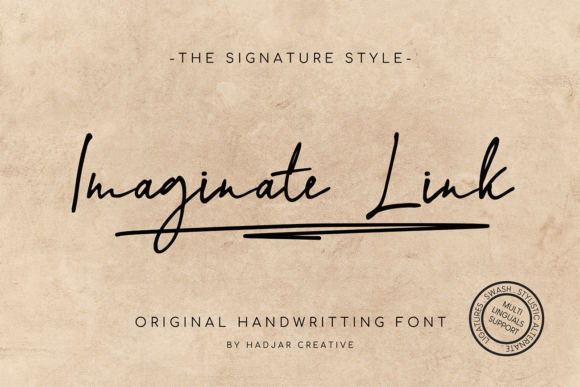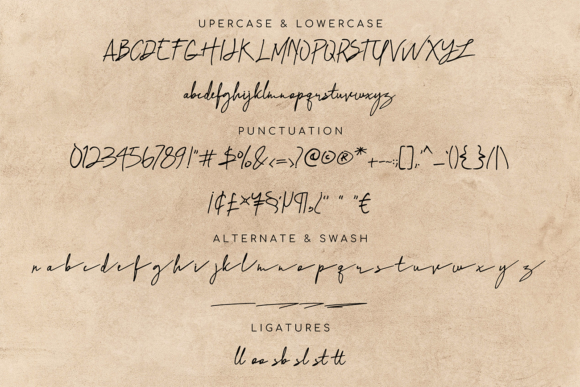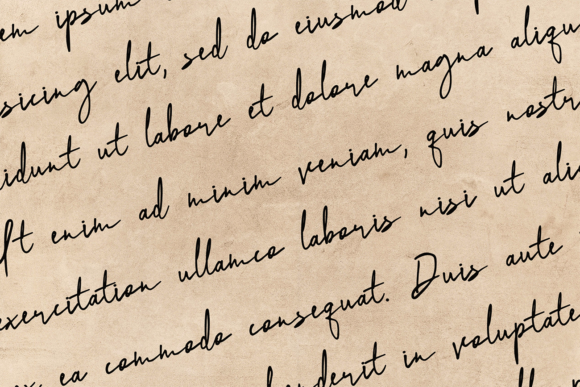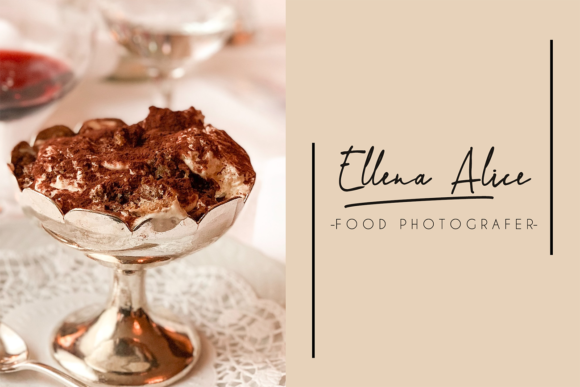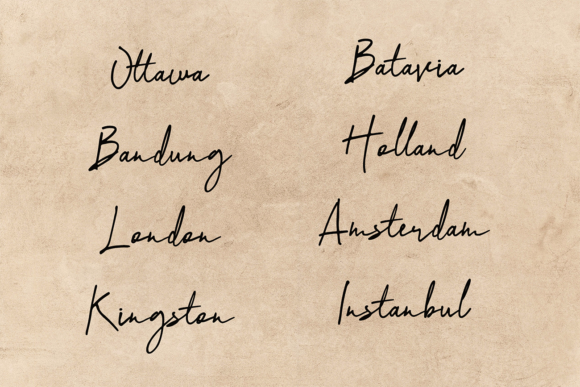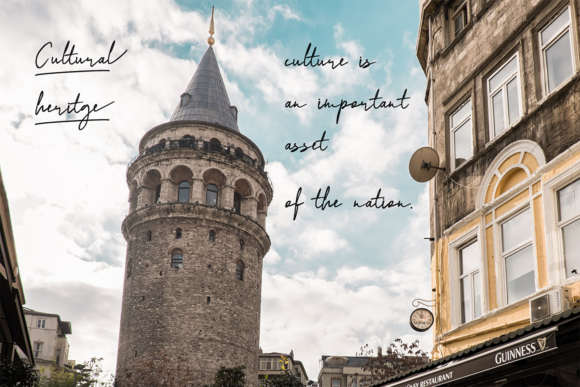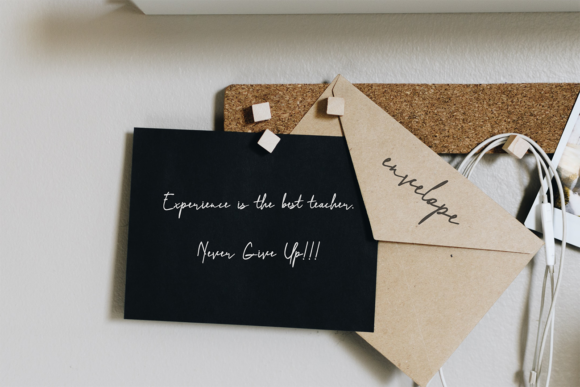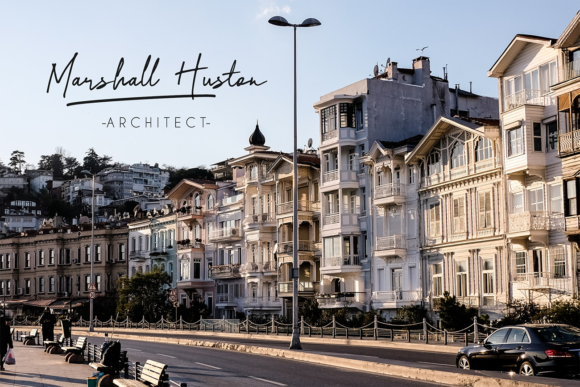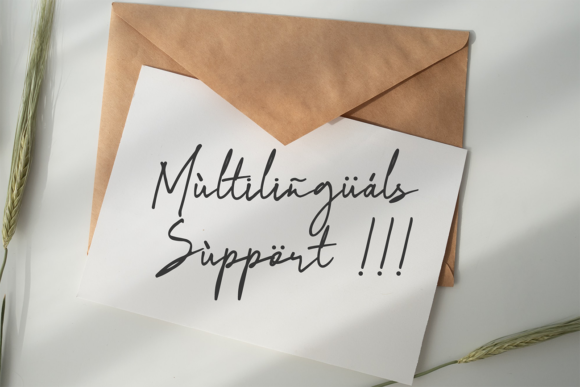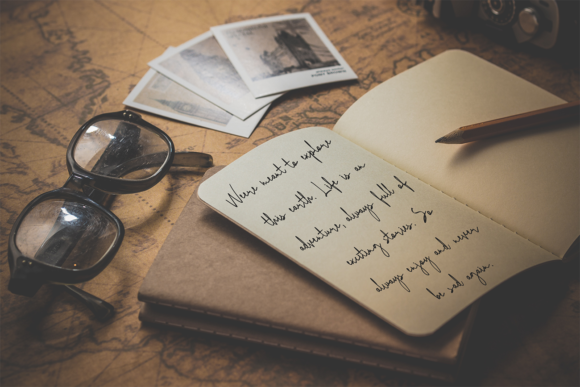
Imaginate Link Font
About Imaginate Link Font
Imaginate Link is a delicate and smooth handwritten font. It is the best choice for creating eye catching logos, branding and quotes. Every letter has a unique and beautiful touch, which will make your design come alive!